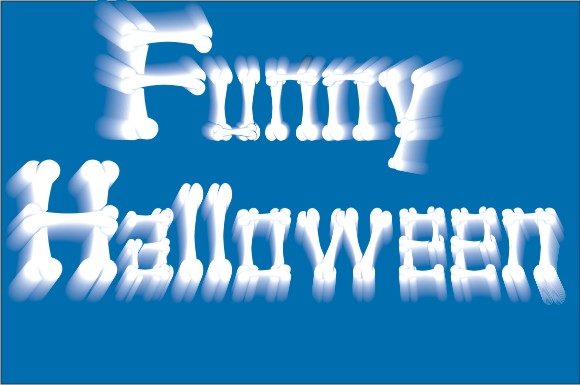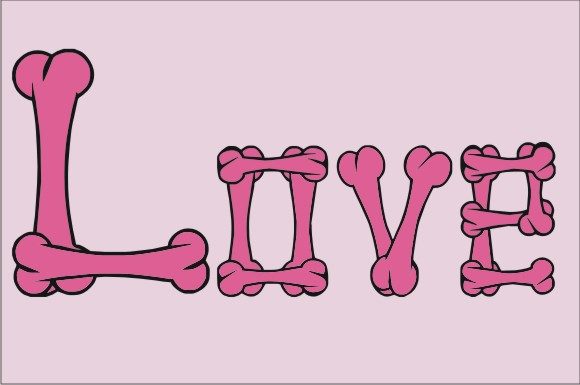
The Ultimate Display Font: Funny Bones
I’ll never forget the time I was working on a project for a client who wanted a bold, eye-catching font to make their brand stand out. I spent hours scouring the internet for the perfect one, but nothing seemed quite right. That was until I stumbled upon Funny Bones, a simple yet incredibly unique display font that completely transformed my design. In this article, I’ll share my experience with Funny Bones, its features, and how to make the most of it in your creative projects.
An Honest Review of Funny Bones
What I Love About Funny Bones ✨
- 💥 Unique and quirky design that adds a touch of personality to any project
- ✅ Easy to read, even in large sizes
- 🎨 Highly versatile and can be used for a wide range of creative projects
- 🔥 Makes your design stand out from the crowd
- ⚠️ May not be suitable for body text or small font sizes due to its bold and playful nature
- 🤔 Limited availability of certain characters or glyphs, but this can be overcome with OpenType features
The Backstory of Funny Bones
Funny Bones was designed by a team of creatives who wanted to create a font that would bring a touch of personality and whimsy to designs. Inspired by classic cartoons and playful typography, Funny Bones is the perfect font for designers who want to add a bit of humor and fun to their work.
| Font Name | Funny Bones Font |
| Author | Gustavo Lucero |
| What type of projects is Funny Bones best suited for? | Funny Bones is perfect for creative projects, branding, and advertising. It’s ideal for designs that require a bold and playful font. |
| Is Funny Bones available in different languages? | Funny Bones may not support all languages, but it does include a range of characters and glyphs to help you create multilingual designs. |
| Can I use Funny Bones in print designs? | Yes, Funny Bones can be used in print designs. Its bold and playful nature makes it perfect for posters, flyers, and other print materials. |
In conclusion, Funny Bones is a unique and versatile display font that’s perfect for designers, crafters, and creative hobbyists. With its bold and playful nature, it’s sure to make your designs stand out from the crowd. Whether you’re working on a branding project, creating a poster, or designing a website, Funny Bones is a great choice.